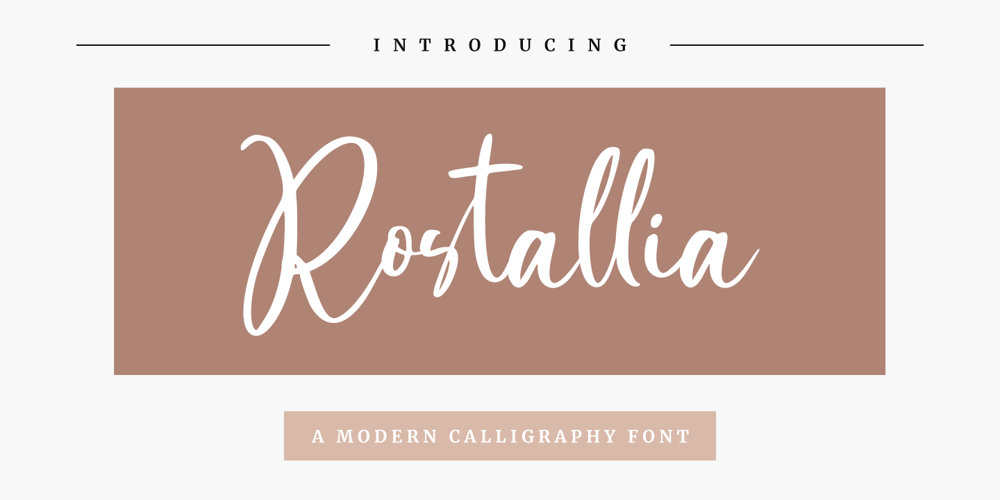
Rostallia Font Family was designed by Novia Himatunnisa and published by Nissa Nana. Rostallia contains 1 styles and family package options. Rostallia is a romantic, beautiful script font. It looks stunning on wedding invitations, thank you cards, quotes, greeting cards, logos, business cards and every other design which needs a handwritten touch. It features a varying baseline, smooth lines, gorgeous glyphs and stunning alternates.